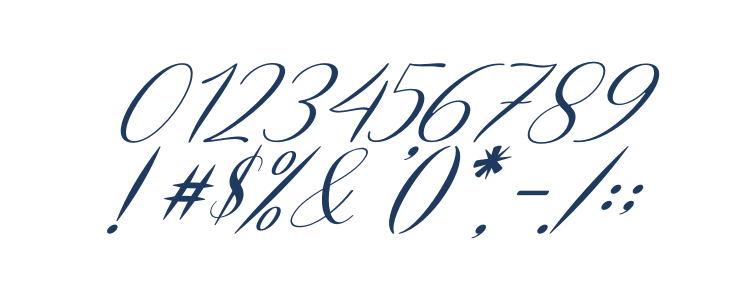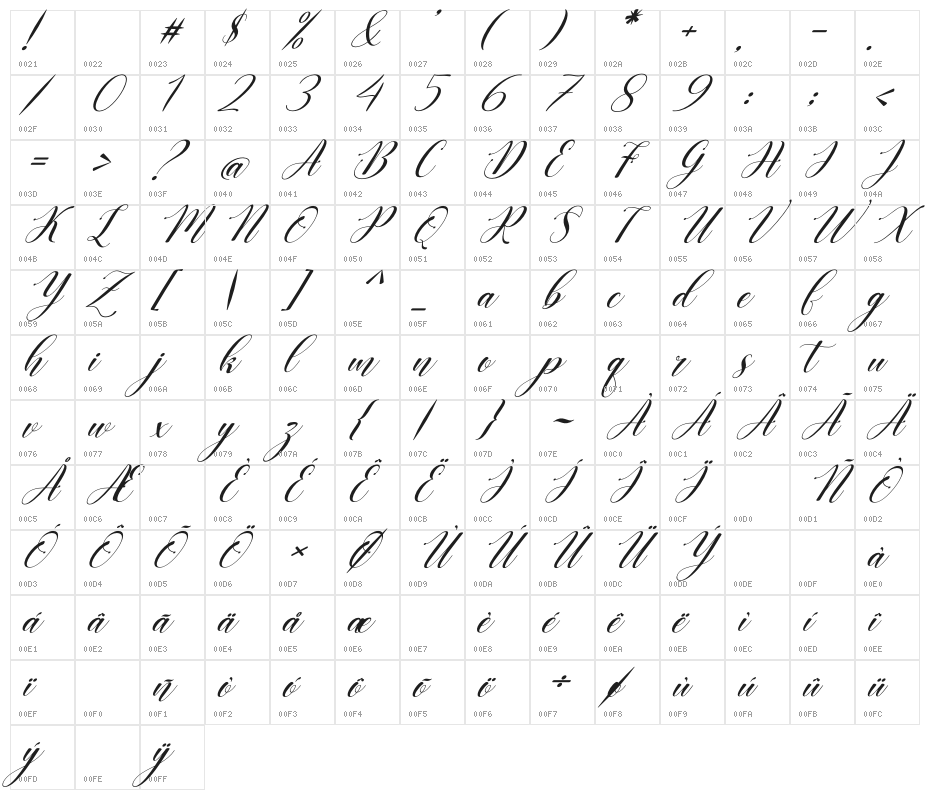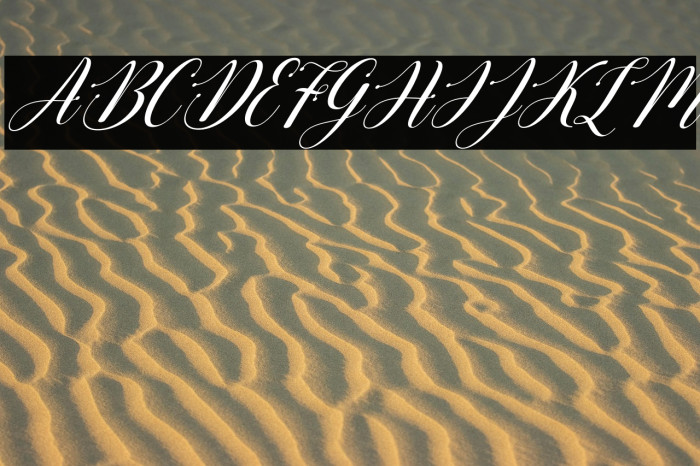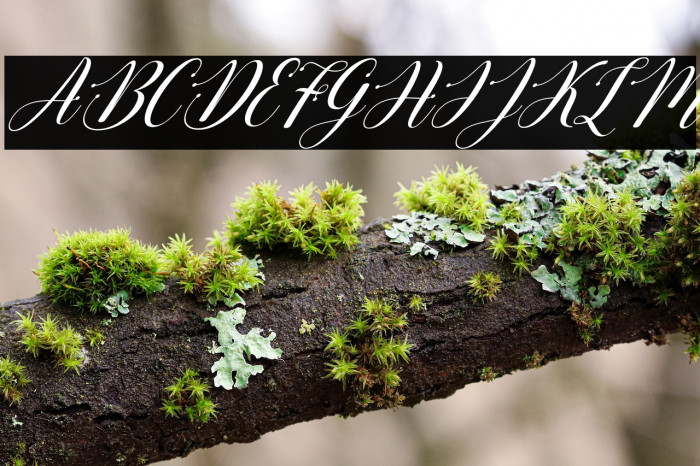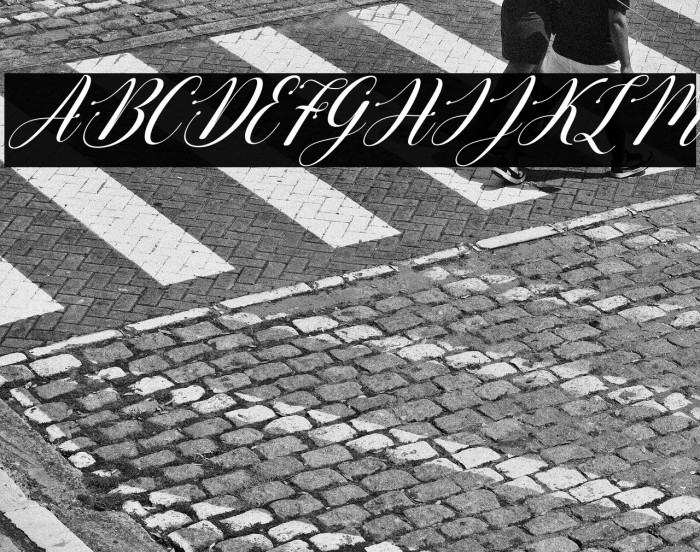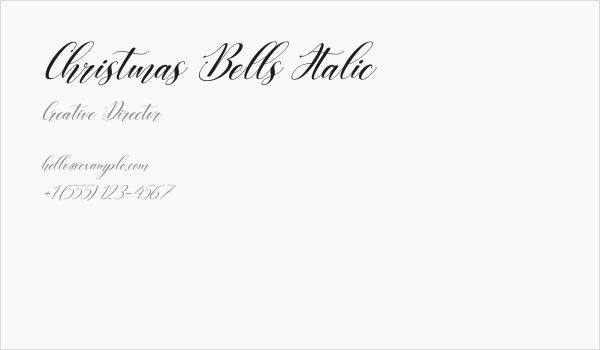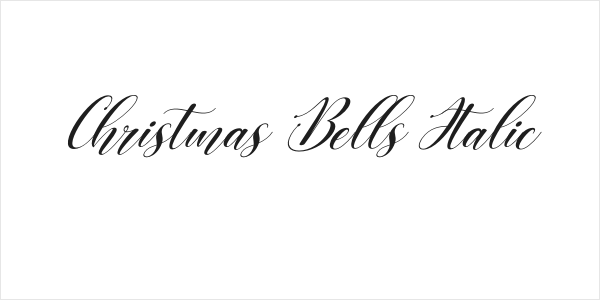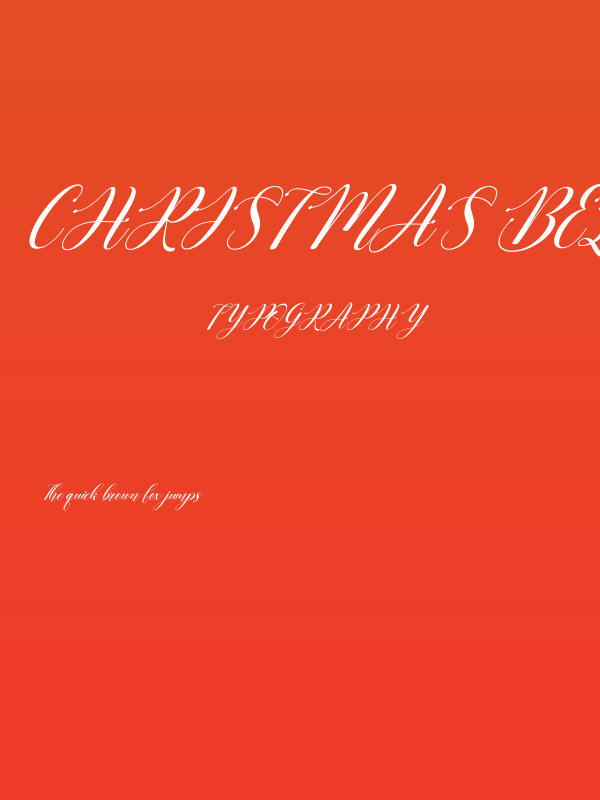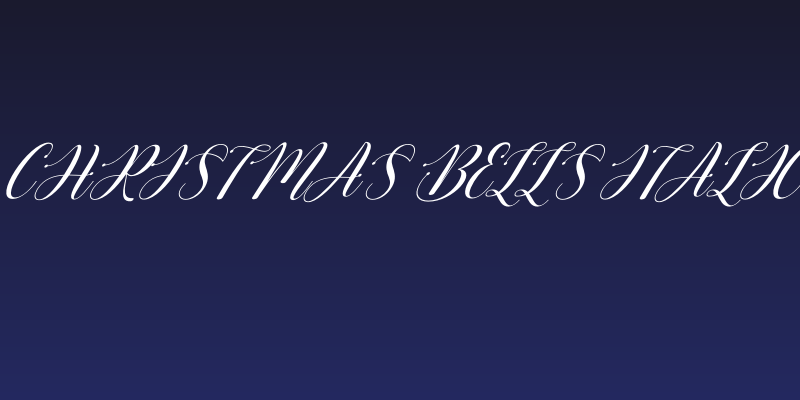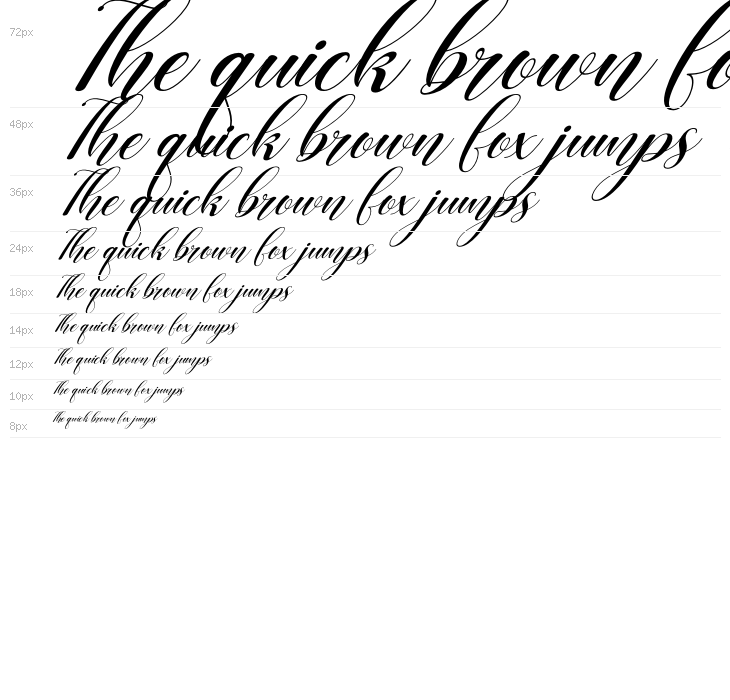
Christmas Bells Italic Font
Christmas Bells Italic Description
This elegant script font features flowing, cursive letters with a classic and sophisticated style. The uppercase letters are particularly ornate, with sweeping lines and flourishes that give a sense of movement and grace. The lowercase letters maintain this fluidity, creating a harmonious and cohesive look. The numbers and special characters are equally stylized, ensuring consistency throughout. This font is perfect for adding a touch of elegance and formality to any design project, making it ideal for invitations, greeting cards, and other decorative purposes.
| Use Case | Invitations, Decorative text, Greeting cards |
| Proposed Projects | Ideal for wedding invitations, holiday cards, elegant branding, and decorative projects. |